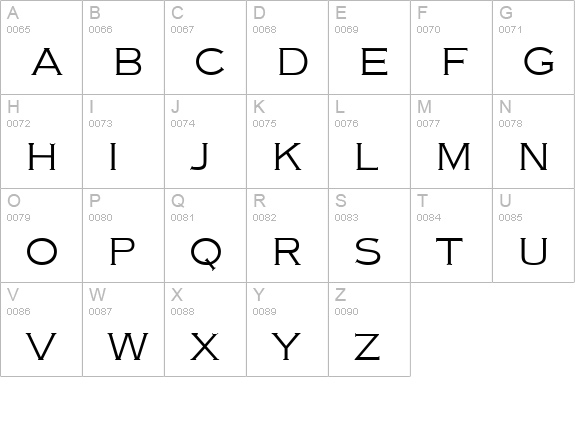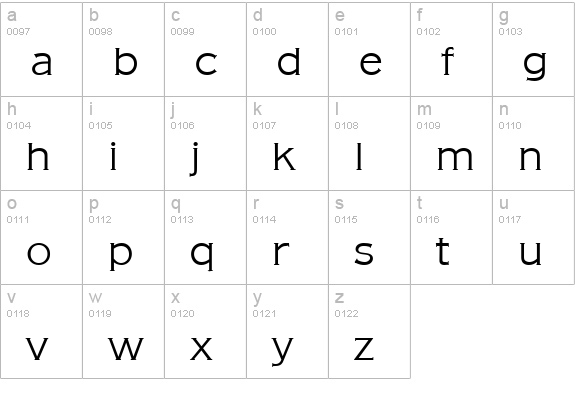
AmericanGotURWTLig Font Details
AmericanGotURWTLig font is a modern and elegant typeface that exudes sophistication and style. With its sharp lines and sleek design, this font is perfect for a wide range of design projects, from branding to editorial layouts. The bold and eye-catching look of AmericanGotURWTLig font makes it a versatile choice for both print and digital designs. What's even better is that AmericanGotURWTLig font is available for free download at FontsMarket.com. This means you can easily access this high-quality font without any cost, making it an excellent choice for designers looking to elevate their projects without breaking the bank. Don't miss out on the opportunity to enhance your designs with the beauty and functionality of AmericanGotURWTLig font – download it for free today!